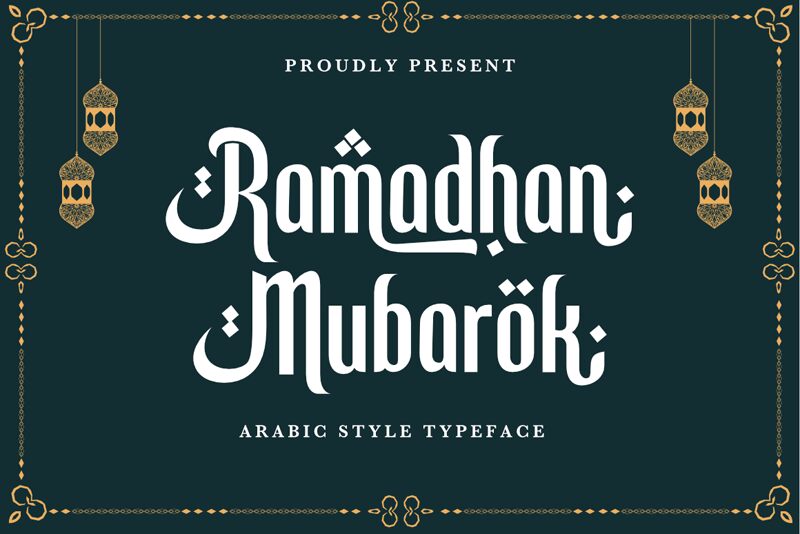
Ramadhan Mubarok is a captivating Arabic-inspired font that exudes a sense of elegance and tradition. Designed by Silverdav Studio, this condensed typeface showcases intricate calligraphic flourishes and ornamental embellishments that evoke the rich cultural heritage of the Middle East. The fluid, interconnected letterforms create a harmonious, almost dreamlike composition, evoking the serene atmosphere of a Ramadan celebration.
This distinctive font would shine in a variety of design applications, from personalized wedding invitations to Eid al-Fitr greeting cards, where its refined aesthetic would lend an authentic and heartfelt touch. Ramadhan Mubarok's versatility also extends to book covers, packaging, and logo designs, where its striking visual presence would command attention and convey a strong sense of cultural identity.